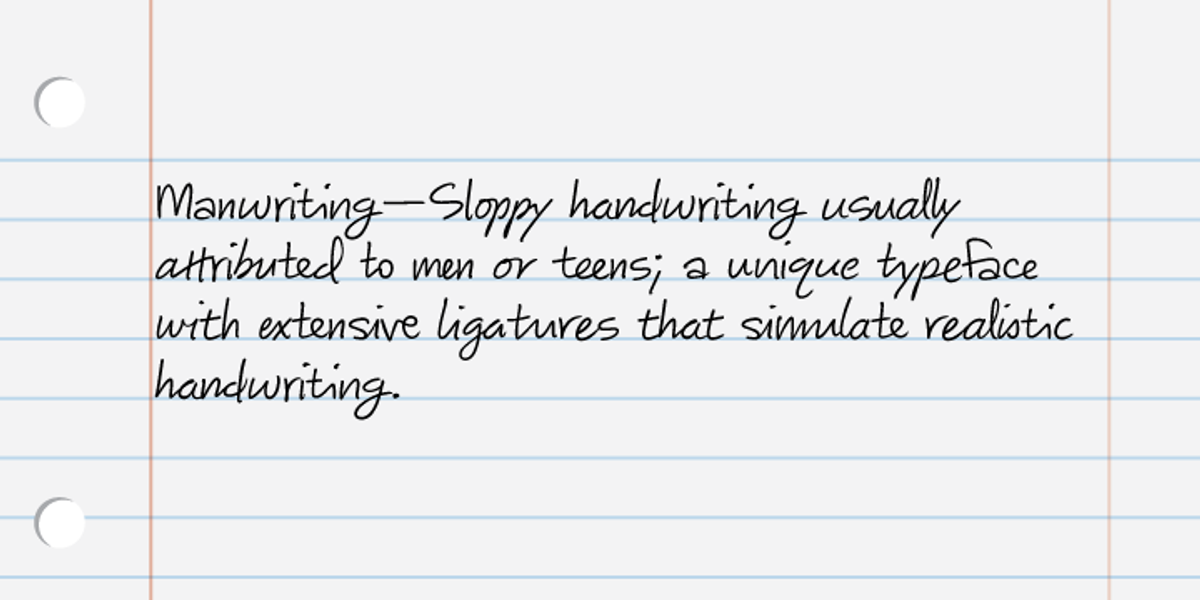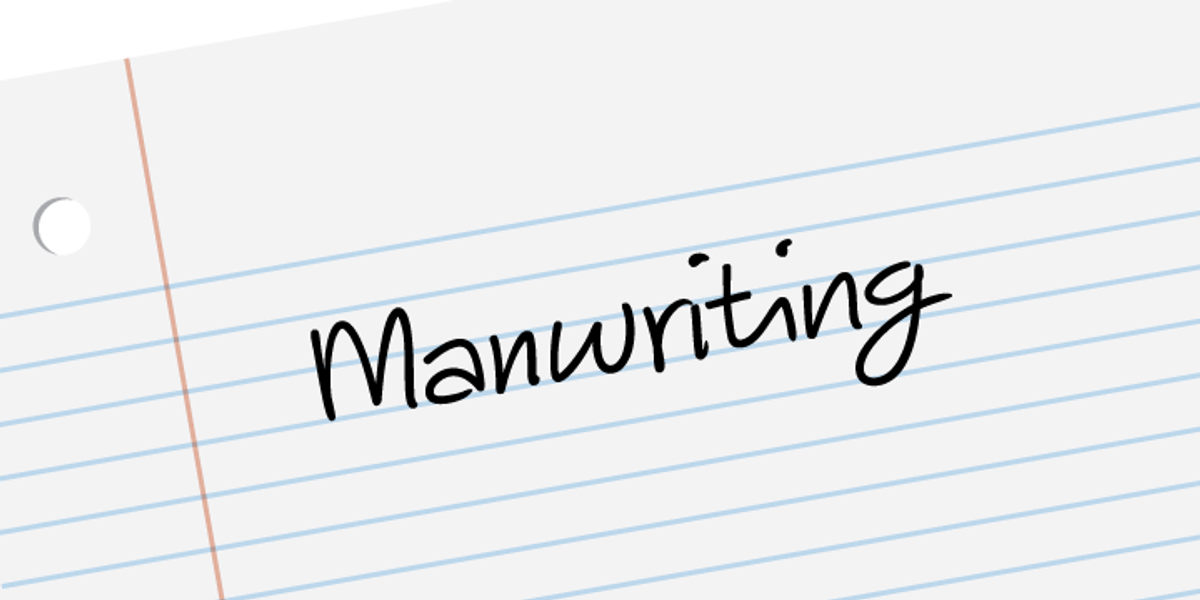
Manwriting
Manwriting is a script typeface designed to closely resemble human handwriting. Its extensive ligature set allows for natural-looking connections between letters, making it suitable for projects requiring authenticity. The font's 'felt-tip' style adds a tactile quality.